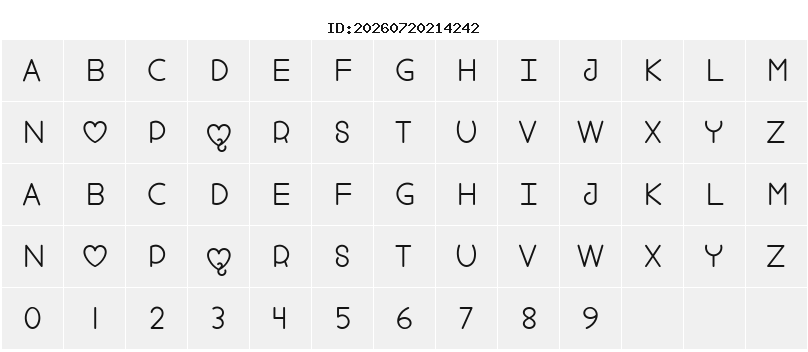
• Font Name: Fool For Love
• Designer: Misti's Fonts (Misti Hammers)
About Fool For Love.ttf
Fool For Love.ttf is a modern, elegant sans-serif font designed for ultimate readability and visual harmony. Perfect for branding, headlines, web design, and print materials.